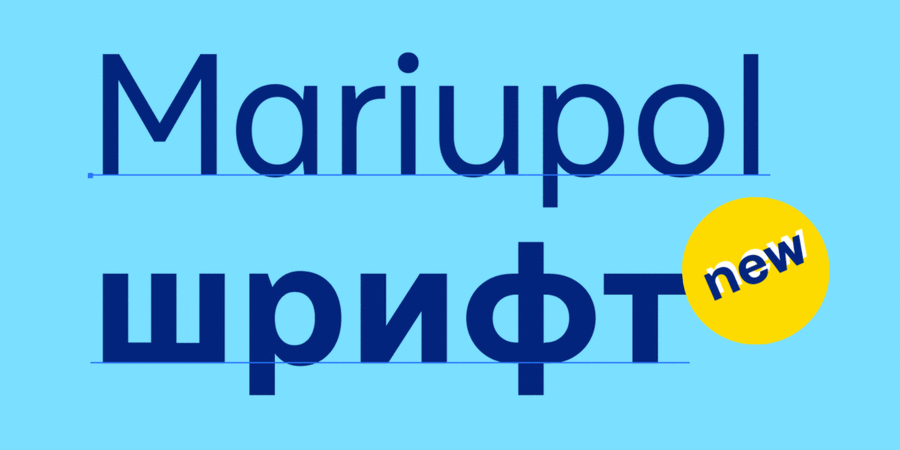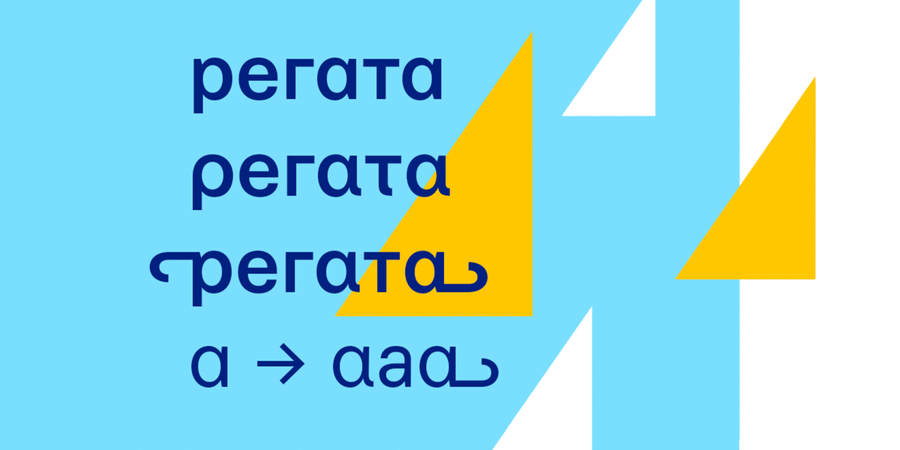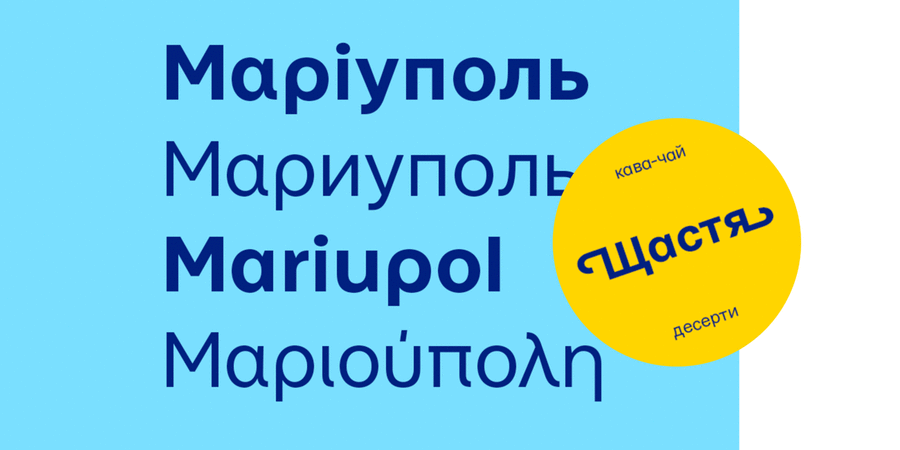
Mariupol is a geometric sans, inspired, on the one hand, by Swiss and German poster graphics, on the other hand by modern technological typefaces like San Francisco, Graphik, Walsheim. Available in three basic styles: Regular, Medium and Bold. Typeface also includes a special font style with icons (Symbols). Ukrainian, English, Greek, Russian languages are supported. Now the font is officially presented in the city wayfinding of Mariupol, it can be seen on trams and boards with the mayor’s greetings. Moreover, anyone can download this font and independently write something mariupolish. The Mariupol font was designed by Andrij Shevchenko and Sergiy Rodionov in 2017.
business, strict, clean, elementary, minimalistic, independent, responsible, west, accurate, flat, convincing, rectangular, stable, static, simple, neutral, modern, globalized, globalistic, monotone, logical, pragmatic, practical, solid, laconic, available, serious, iron, steel, reliable, self-assured, machine, engineering, industrial, technogenic, urban, crisp, schematic, urbanistic, mandatory, original, clear, interesting, smooth, friendly, comfortable, important, architectural, workman, strong, motivating, manly, cutting, sharp